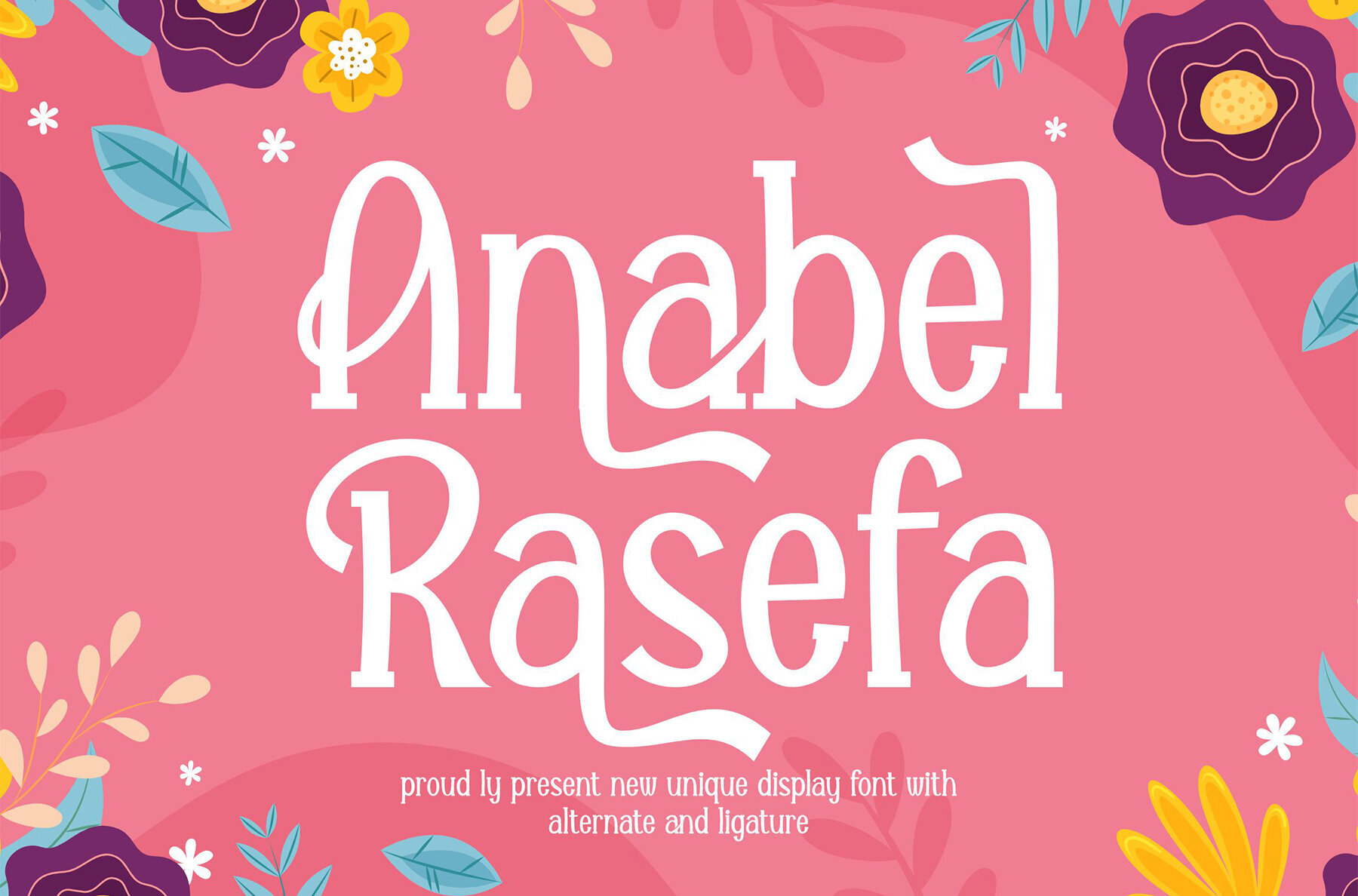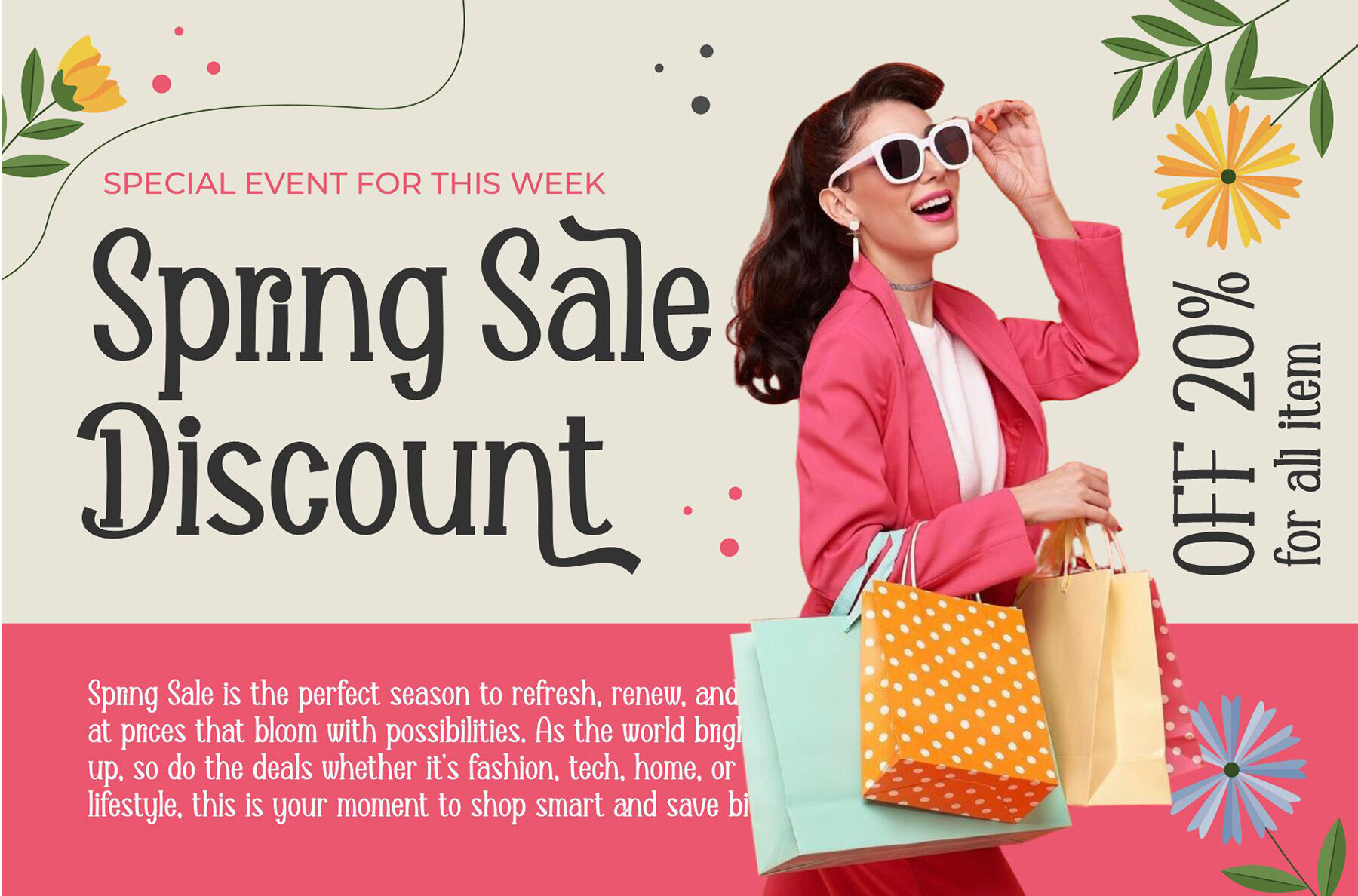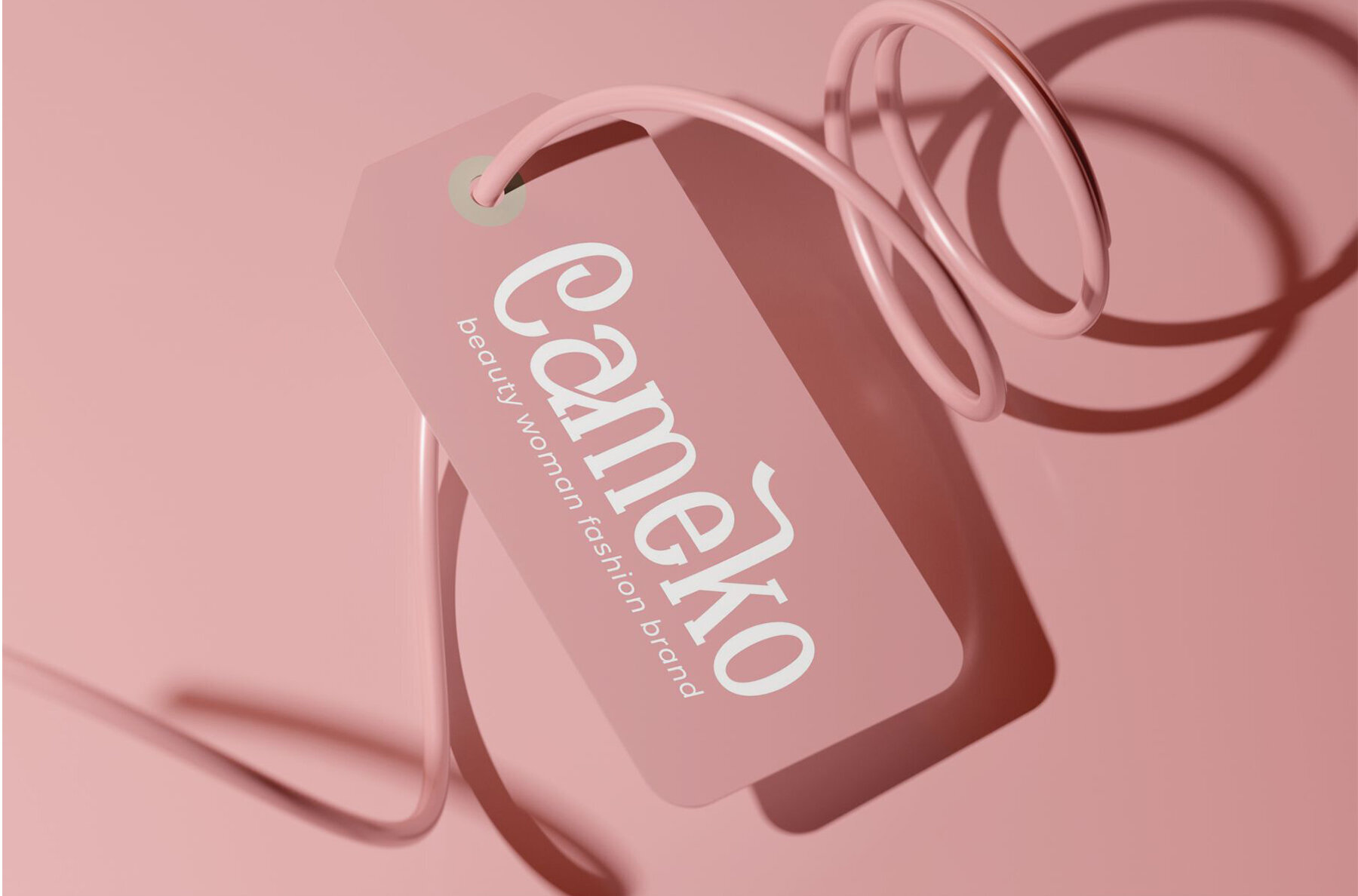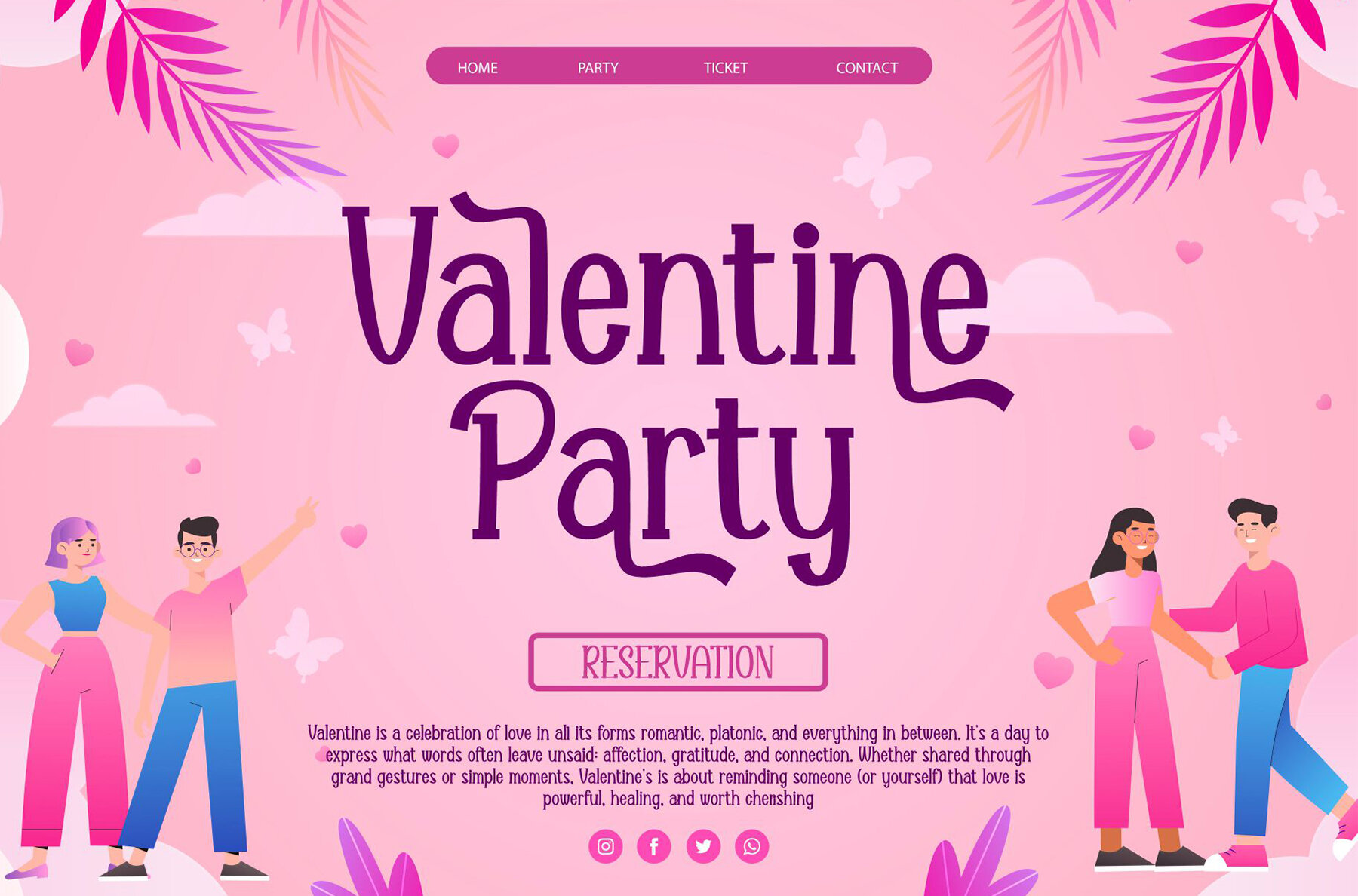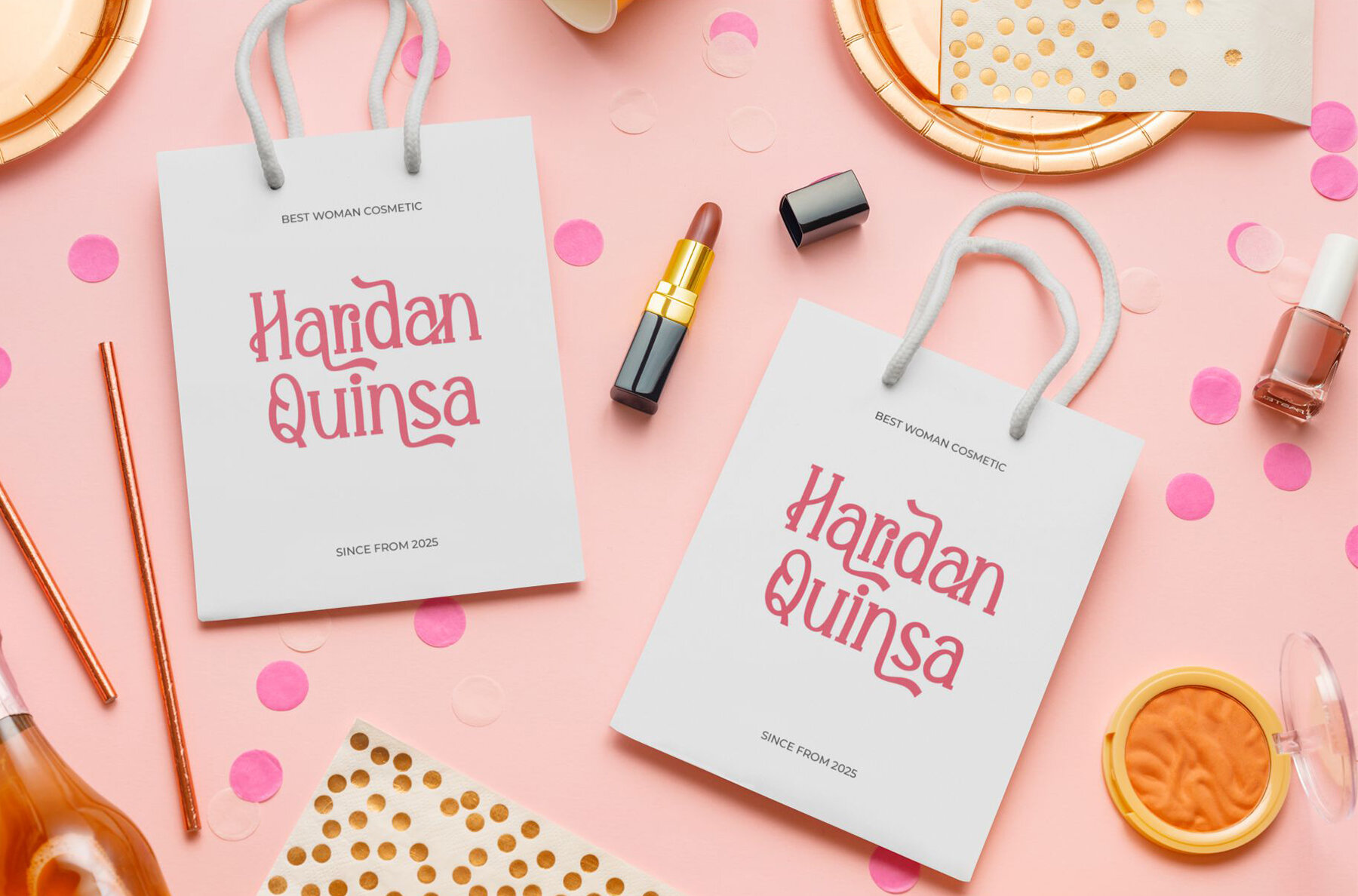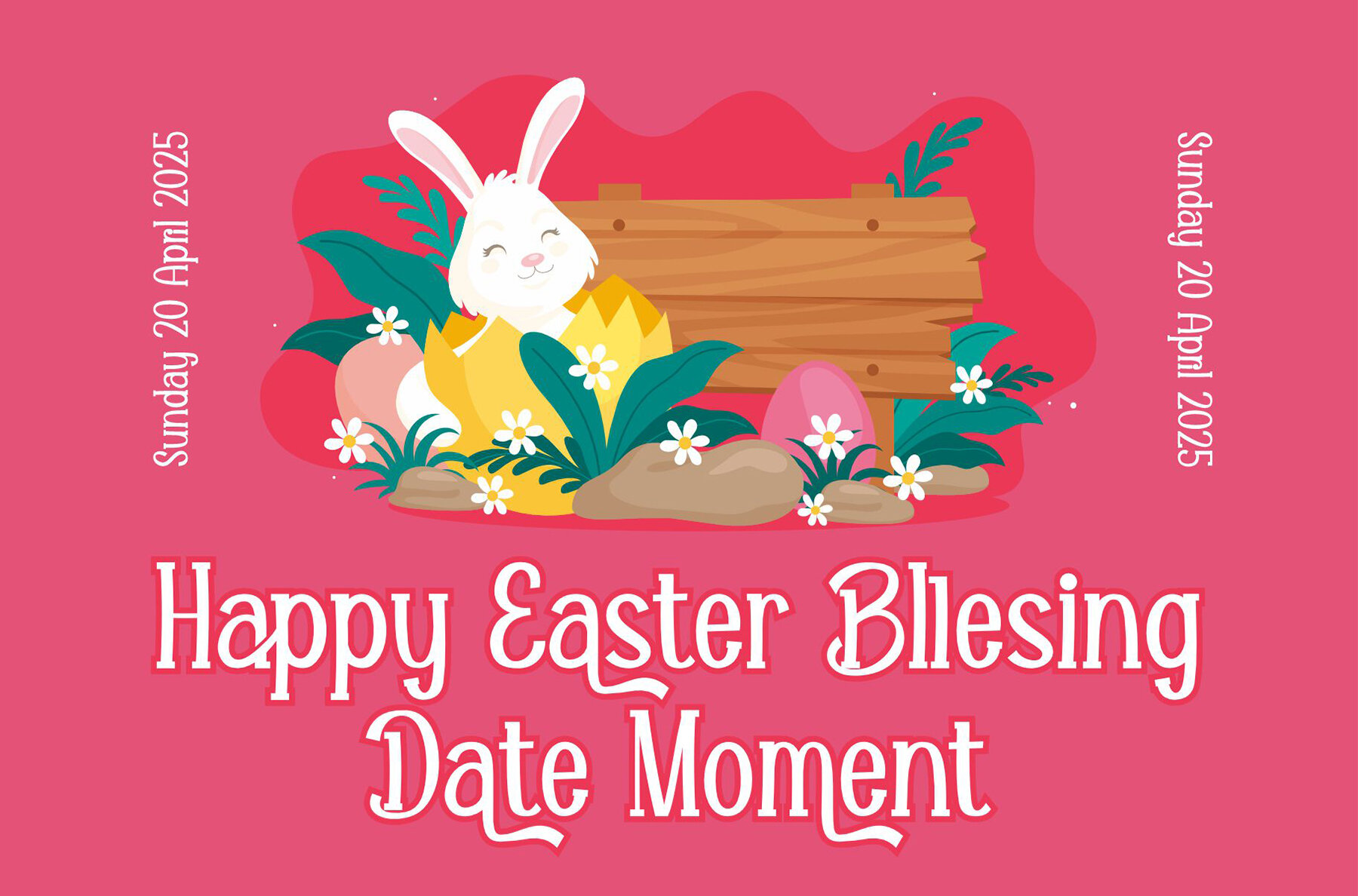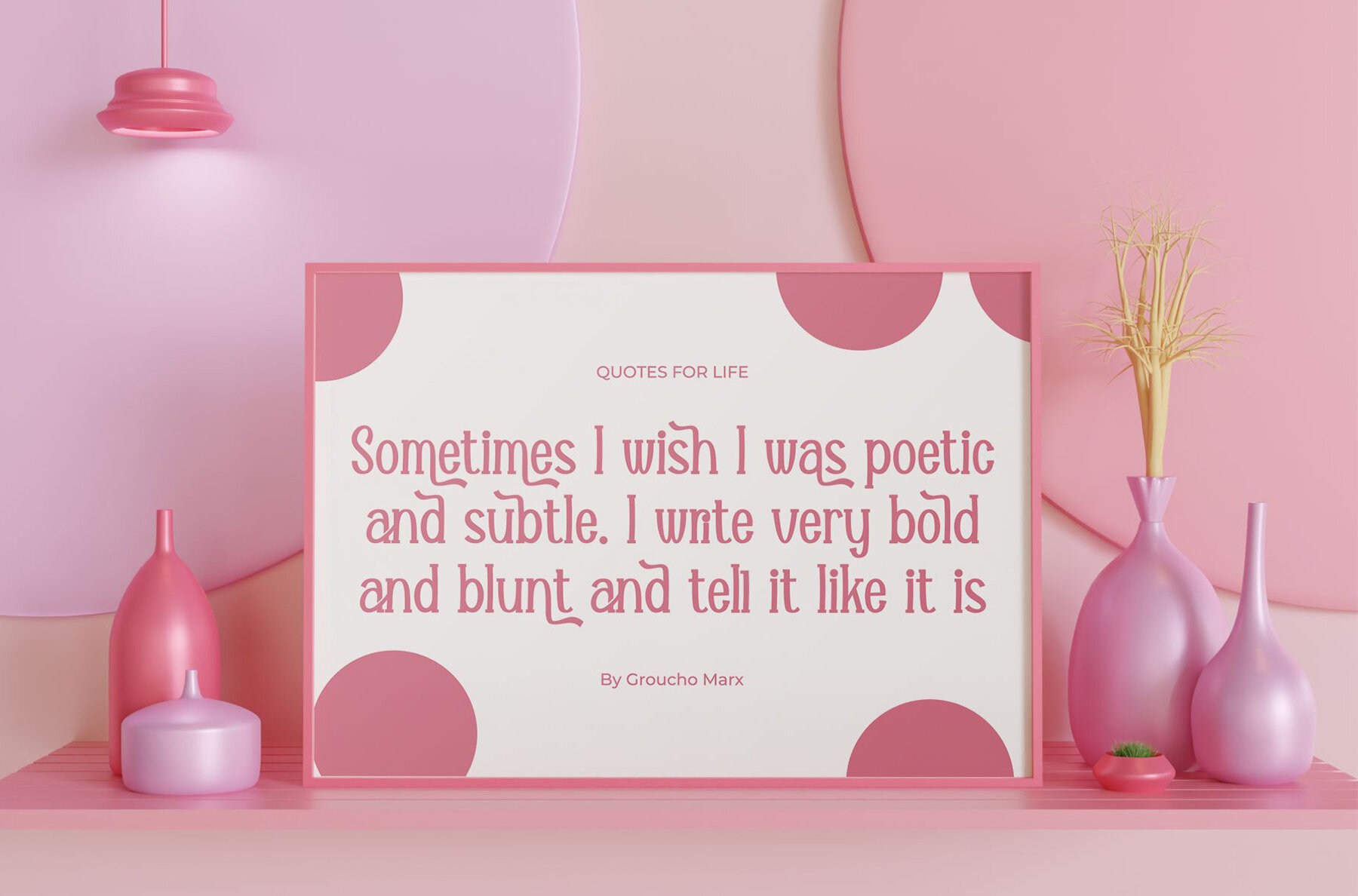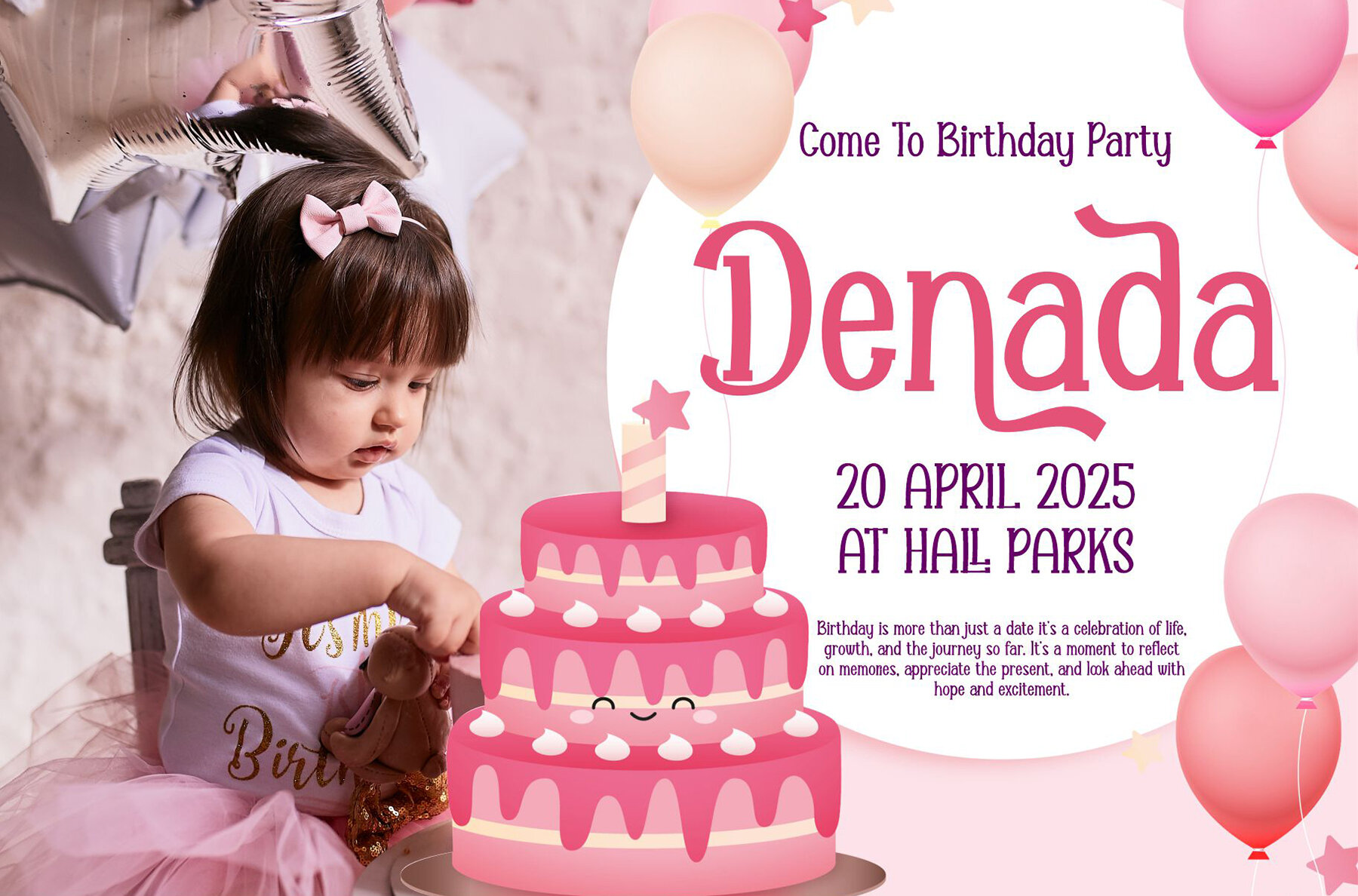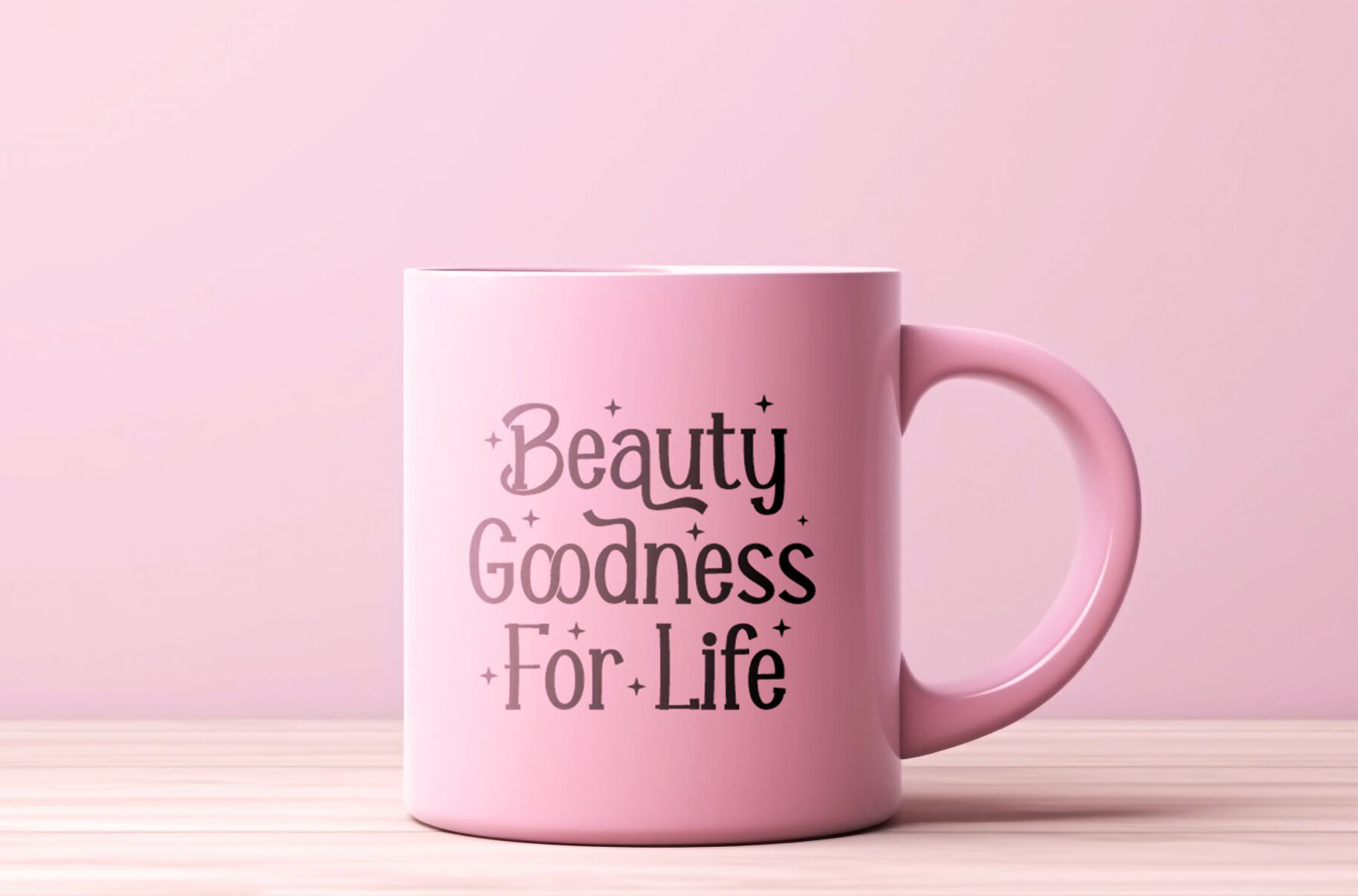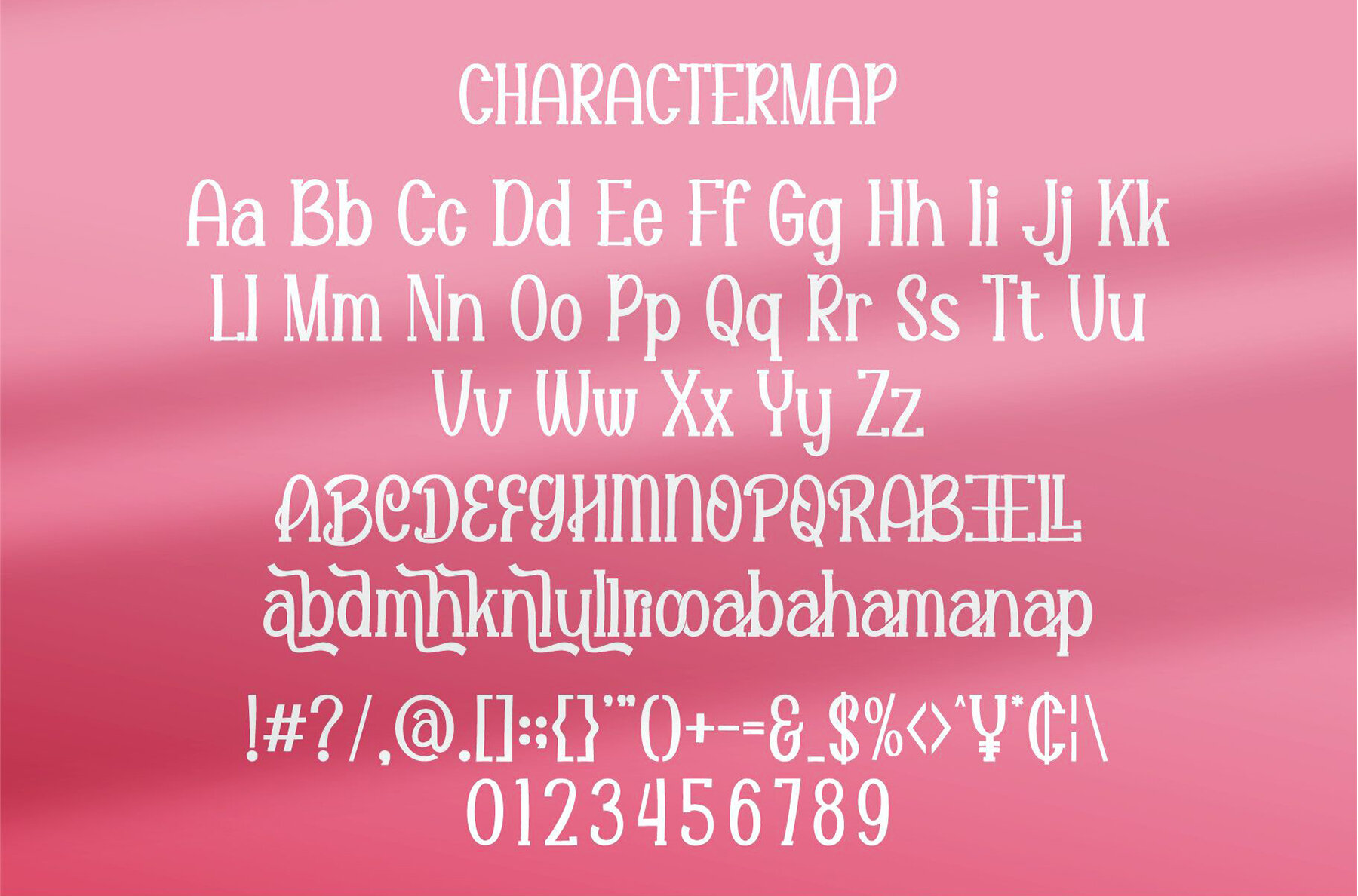
Anabel Rasefa Font
Anabel Rasefa
Anabel Rasefa is a delightful cartoon display font that exudes modernity and charm. With its bouncy and refreshing style, this font carries a distinctive wooden theme, making it a perfect choice for designers seeking a playful yet sophisticated touch. Ideal for a multitude of design projects, Anabel Rasefa shines when paired with invitation cards, company logos, movie titles, business cards, book covers, and brand names.Anabel Rasefa: A Playful Display Font